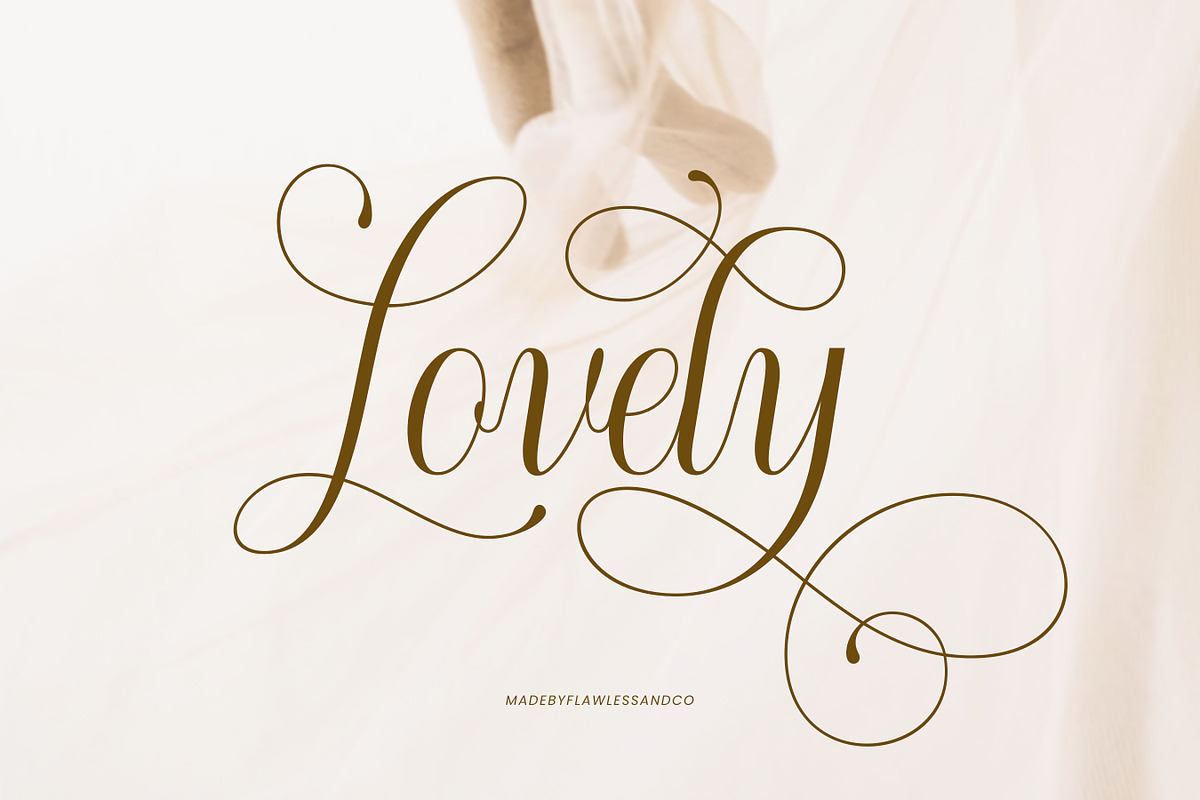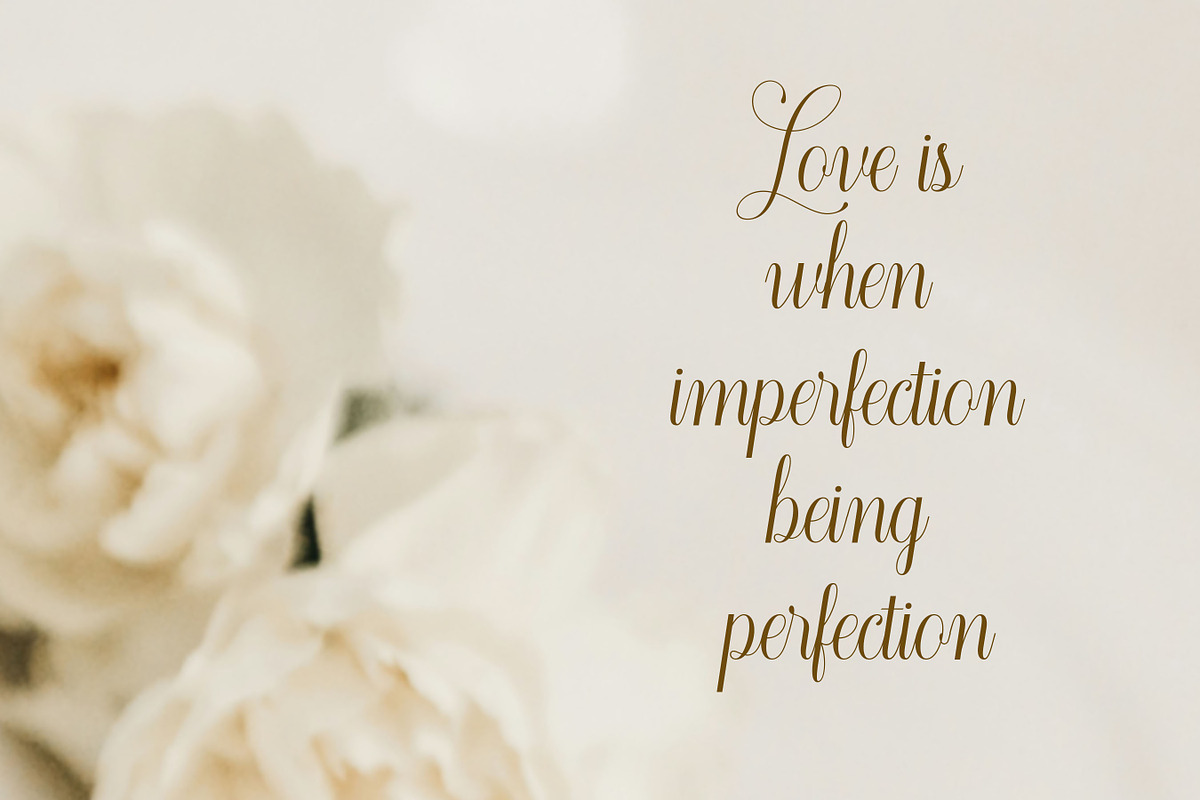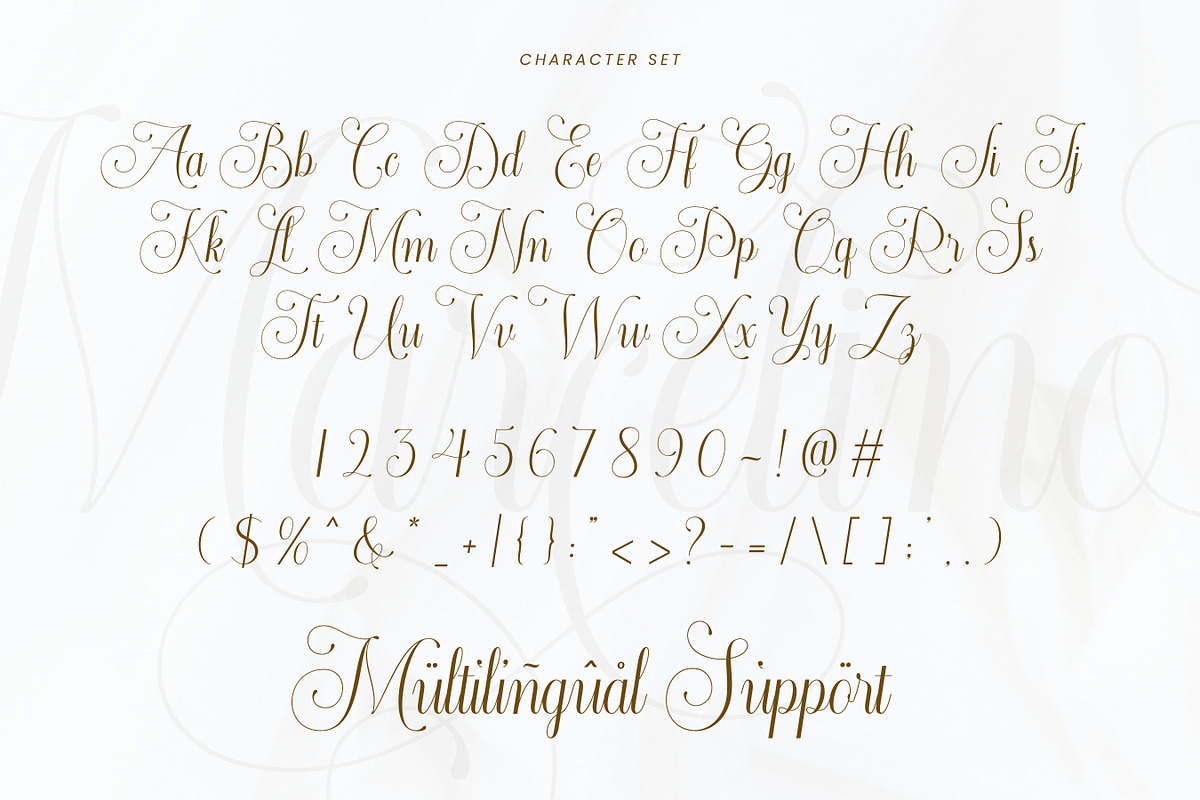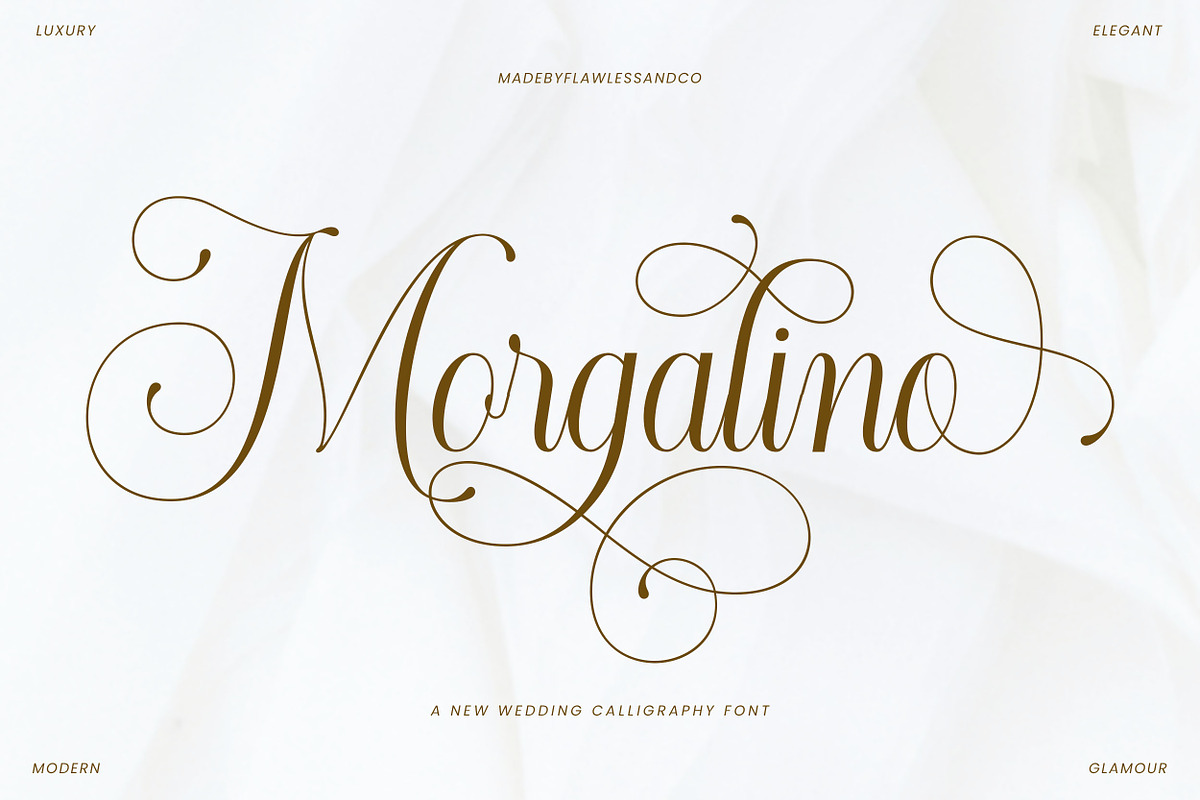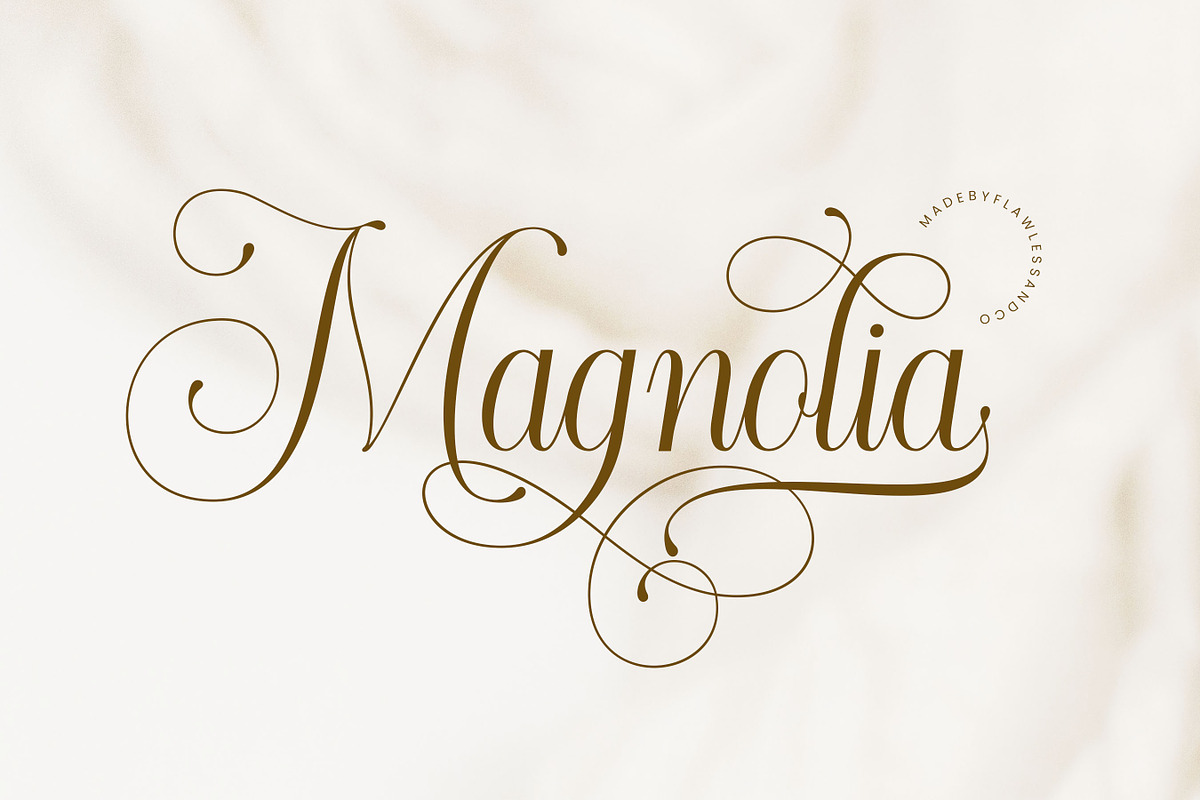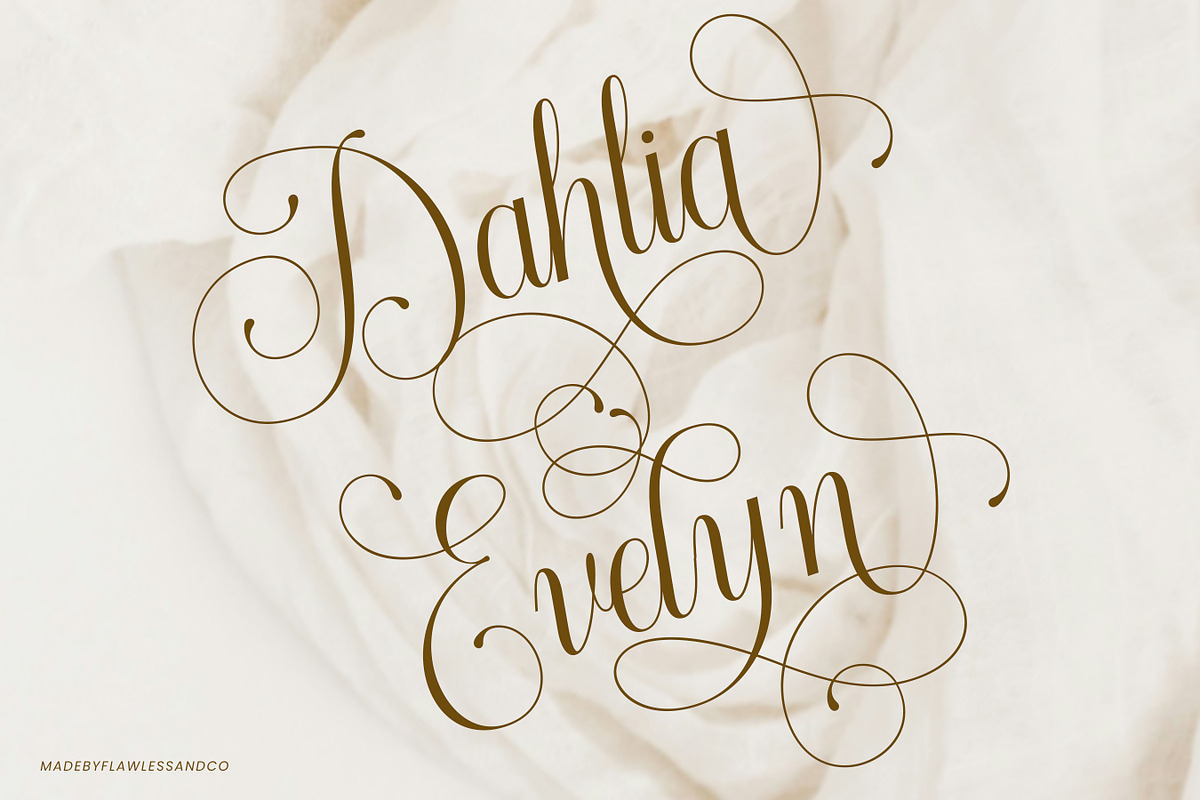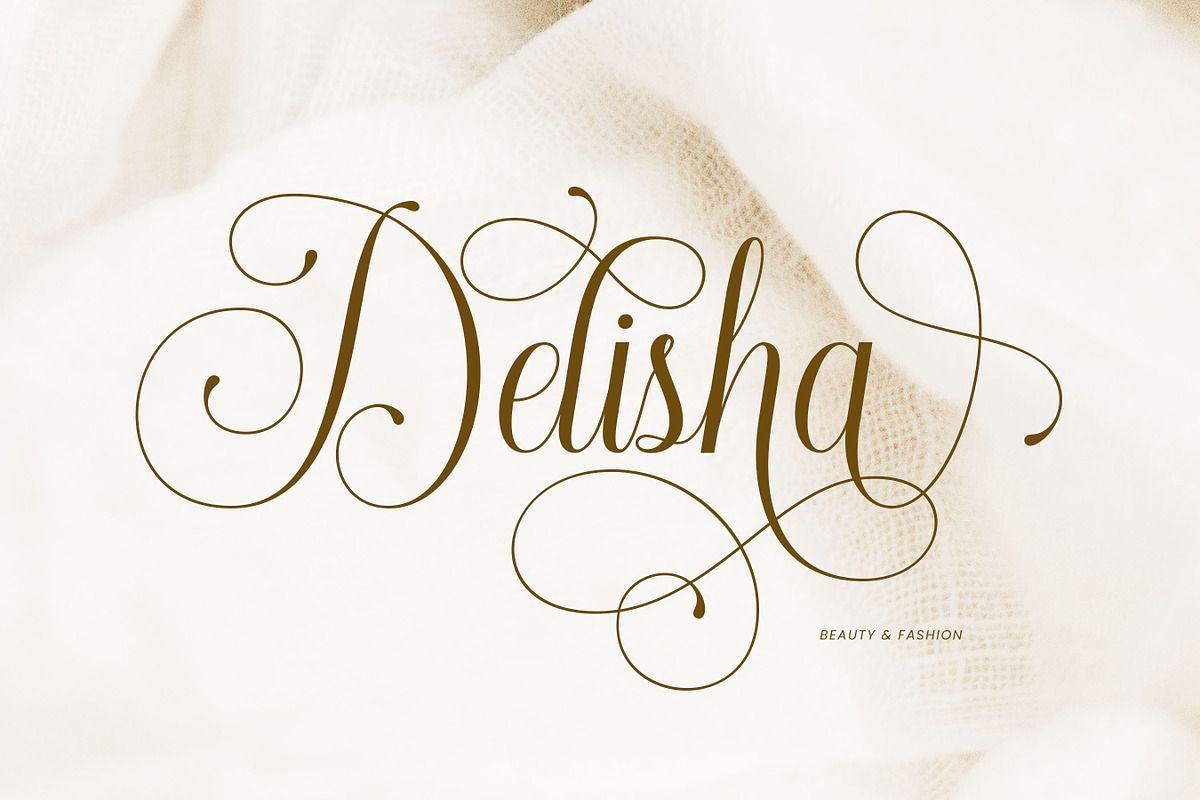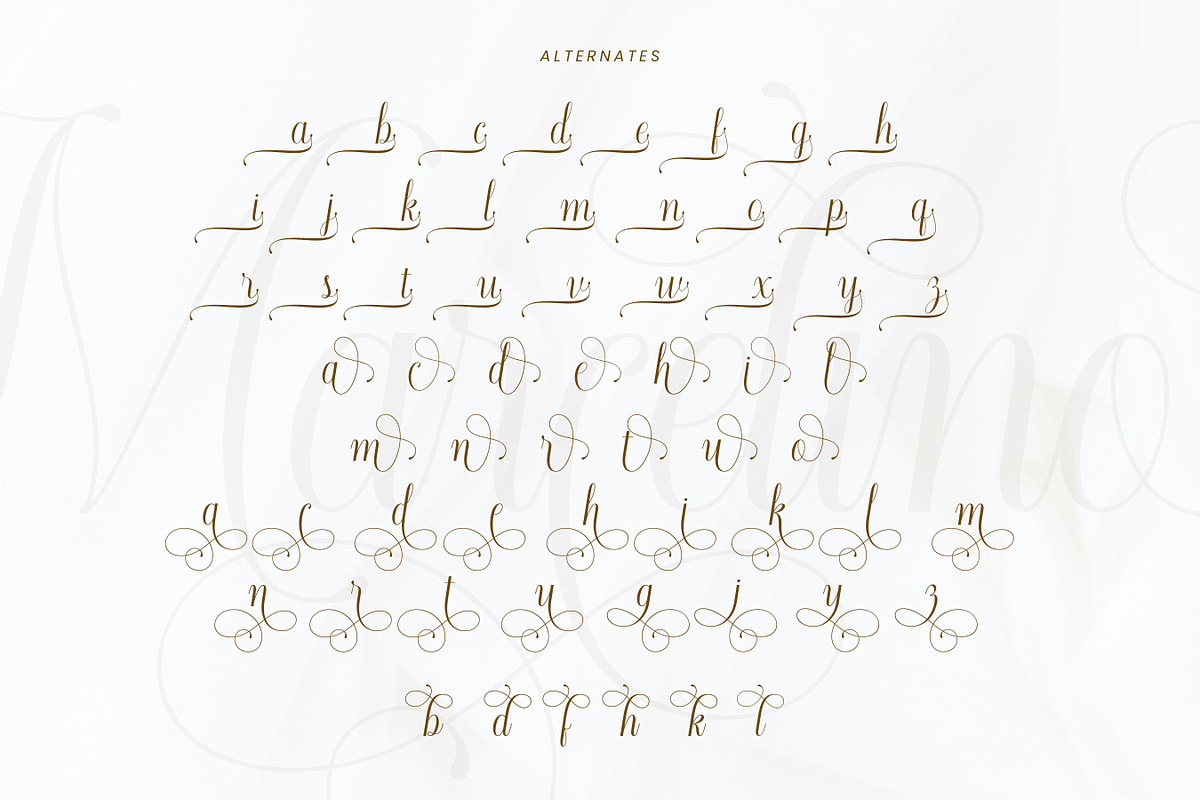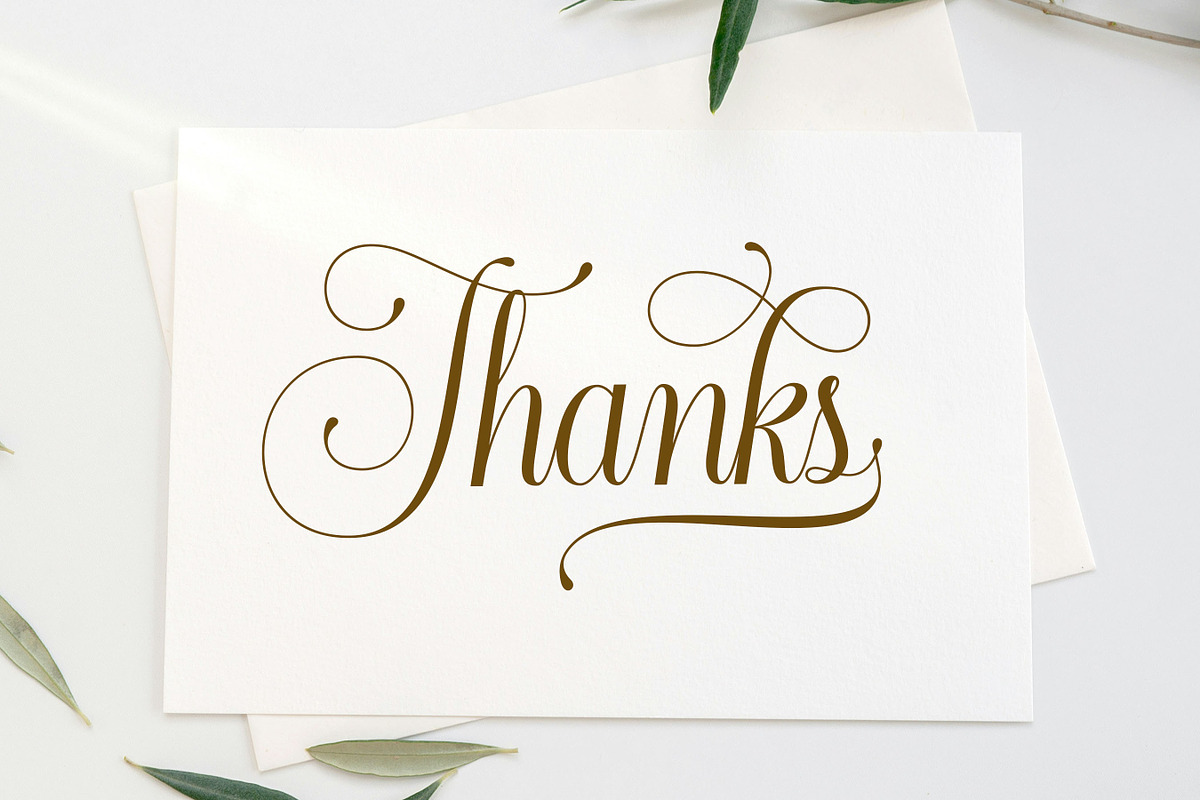
Morgalino - Wedding Script Font
Introducing Morgalino, a captivating script font designed to add a touch of elegance and timeless beauty to your wedding invitations, stationery, and other special occasion materials. Inspired by the graceful flow of calligraphy, Morgalino exudes a romantic and sophisticated ambiance, perfectly complementing the momentous occasion of your wedding.
Multilingual Uppercase alphabet A-Z Lowercase alphabet a-z Numbers 0-9 Some punctuation